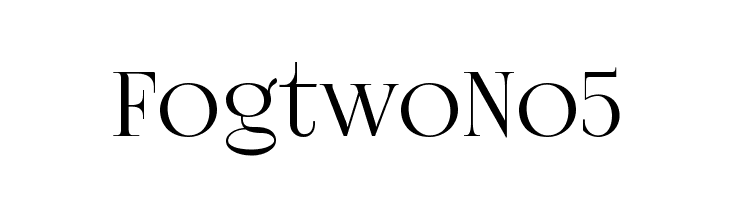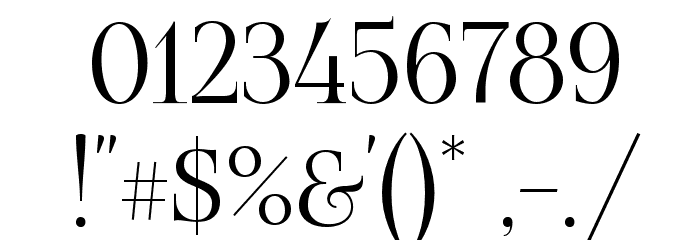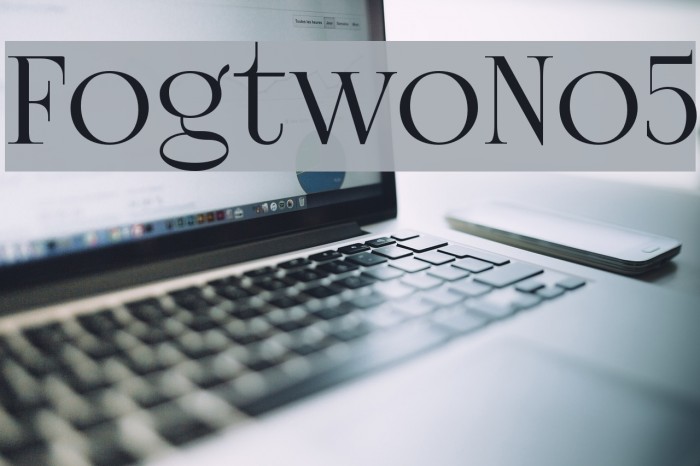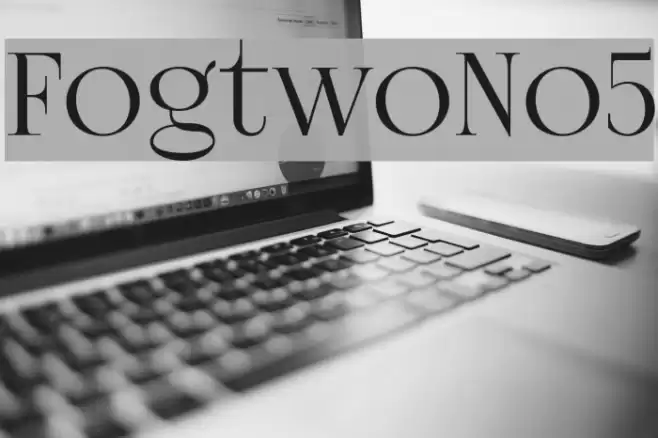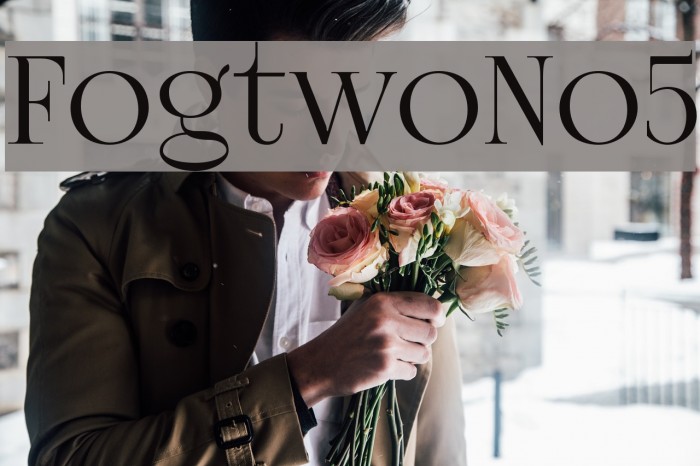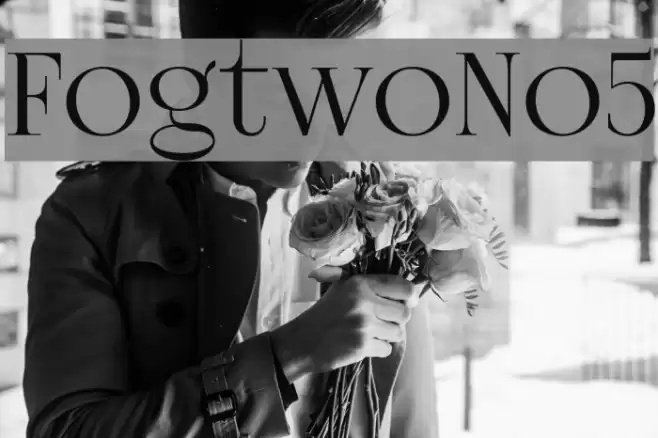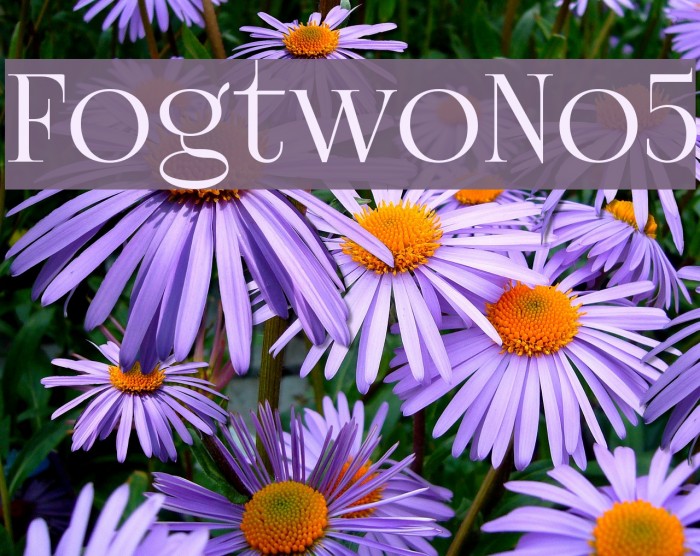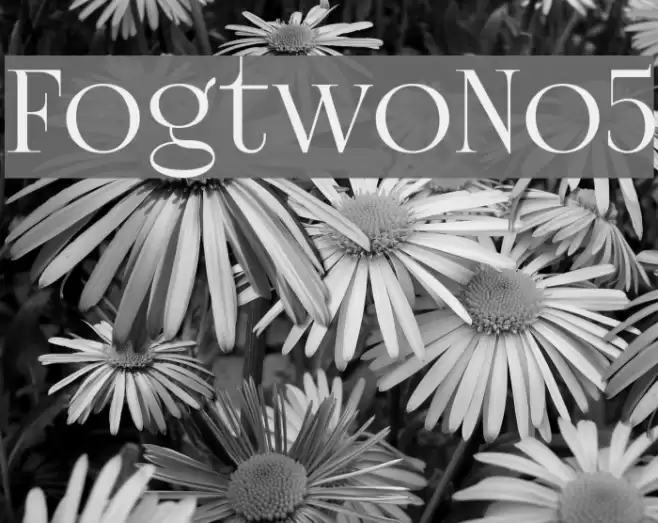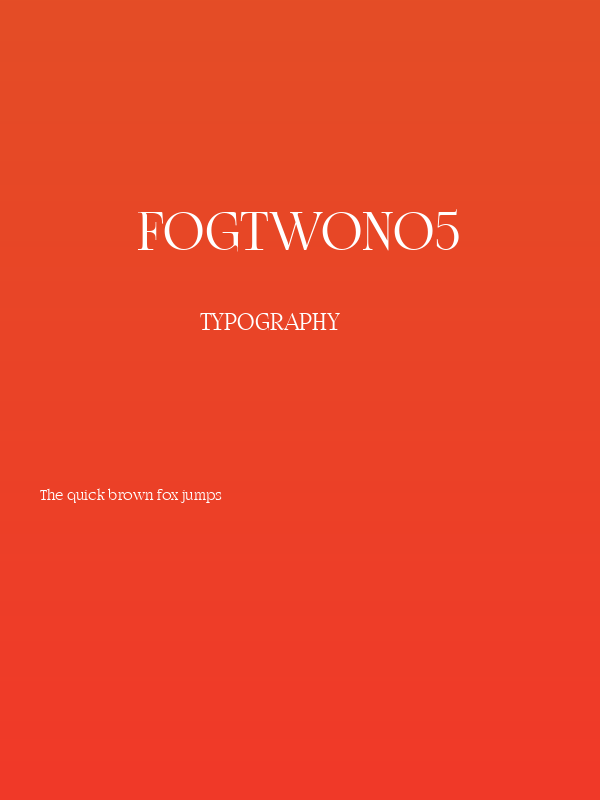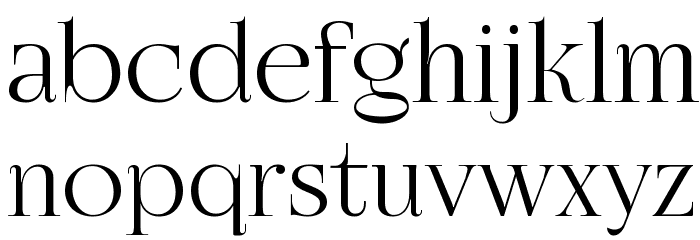
FogtwoNo5 Font
FogtwoNo5 Description
This font exhibits a refined and elegant serif style, characterized by its high contrast between thick and thin strokes. The uppercase letters are stately and commanding, with a slight curvature that adds a touch of sophistication. The lowercase letters maintain a consistent flow, with distinctive features such as the curved tail on the 'Q' and the elegant loop of the 'g'. The numerals are well-proportioned, complementing the overall aesthetic. The special characters are crafted with precision, ensuring readability and style.
| Proposed Projects | Ideal for luxury branding, editorial design, wedding invitations, and high-end product packaging. |